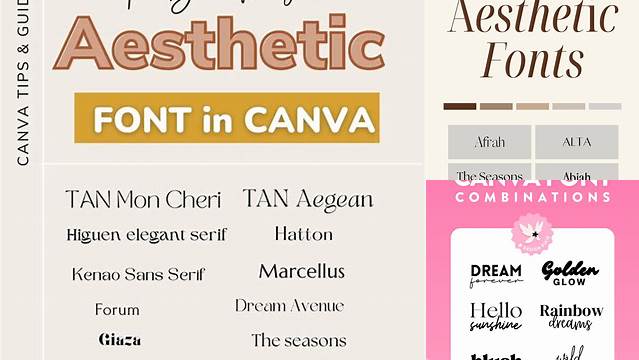
Aesthetic Canva Fonts: Perfect Combinations!
Choosing the right fonts can make or break your design, especially when aiming for that perfect aesthetic. Canva offers a plethora of fonts, but knowing which ones pair well together can be tricky. Let's dive into some killer aesthetic Canva font combinations that will elevate your designs and make them truly stand out!
1. Classic Serif & Modern Sans-Serif
Pairing a classic serif font with a modern sans-serif is a timeless combination that works wonders. The serif font brings a touch of elegance and tradition, while the sans-serif adds a contemporary and clean feel. For example, you can use 'Lora' for headings and 'Montserrat' for body text. This combination is versatile and suitable for various projects, from blog posts to branding materials. Think of the serif as the sophisticated older sibling and the sans-serif as the cool, modern younger sibling – they complement each other perfectly, creating a balanced and visually appealing design. Using this approach ensures readability while maintaining a stylish aesthetic. You can also play around with different weights and styles within these font families to add further depth and visual interest to your designs. Remember, the goal is to create a harmonious balance between the two fonts, so experiment until you find a combination that truly resonates with your vision. With the right serif and sans-serif pairing, you can achieve a professional and polished look that will impress your audience and elevate your brand.
2. Elegant Script & Simple Sans-Serif
For a touch of sophistication and personality, combine an elegant script font with a simple sans-serif. Script fonts add a handwritten, artistic flair, while sans-serif fonts provide clarity and readability. 'Great Vibes' paired with 'Open Sans' is a fantastic example. This pairing is ideal for wedding invitations, greeting cards, and designs that need a personal touch. Imagine the script font as the beautiful handwriting on a heartfelt letter, and the sans-serif as the clear, concise message that accompanies it. Together, they create a feeling of warmth and authenticity. When using script fonts, it's essential to use them sparingly, mainly for headings or short phrases, to avoid overwhelming the viewer. The sans-serif font should be used for the body text, ensuring that the message is easily readable. Experiment with different script and sans-serif fonts to find the perfect balance that suits your design style. Whether you're designing a romantic wedding invitation or a charming birthday card, this combination will add a touch of elegance and personality that will captivate your audience.
3. Bold Display & Clean Sans-Serif
A bold display font paired with a clean sans-serif is perfect for making a statement. The display font grabs attention, while the sans-serif ensures readability. Try 'Bebas Neue' for headings and 'Roboto' for body text. This combination is great for posters, website headers, and marketing materials. The bold display font acts as the attention-grabbing headline, drawing the viewer's eye and conveying the main message. The clean sans-serif font provides the necessary clarity and readability for the supporting text. This pairing is particularly effective when you want to create a strong visual impact and communicate a clear message. When choosing a bold display font, consider its overall style and personality. Does it align with your brand's image and target audience? The sans-serif font should be simple and unobtrusive, allowing the display font to shine. Experiment with different weights and sizes to create a visually appealing hierarchy. With the right bold display and clean sans-serif combination, you can create designs that are both eye-catching and easy to read, making a lasting impression on your audience.
4. Monospace & Geometric Sans-Serif
For a modern and tech-inspired look, try a monospace font with a geometric sans-serif. Monospace fonts have a fixed-width, giving them a unique, typewriter-like appearance. Pairing 'Courier Prime' with 'Raleway' creates a sleek and contemporary design. This combination is ideal for coding-related content, minimalist designs, and anything that needs a touch of techy sophistication. The monospace font adds a sense of precision and technical expertise, while the geometric sans-serif provides a clean and modern aesthetic. Think of it as the perfect blend of old-school coding and futuristic design. When using this combination, be mindful of readability. Monospace fonts can sometimes be challenging to read in large blocks of text, so use them sparingly, mainly for headings, code snippets, or short phrases. The geometric sans-serif font should be used for the body text, ensuring that the message is easily understandable. Experiment with different weights and styles to create a visually appealing contrast. With the right monospace and geometric sans-serif pairing, you can achieve a sophisticated and tech-savvy look that will impress your audience.
5. Vintage Serif & Classic Sans-Serif
To evoke a sense of nostalgia and timelessness, combine a vintage serif font with a classic sans-serif. The vintage serif font adds character and charm, while the classic sans-serif provides a sense of stability and reliability. 'Playfair Display' paired with 'Lato' is a great choice. This combination is perfect for branding, packaging, and designs that need a touch of old-world elegance. The vintage serif font acts as a reminder of the past, while the classic sans-serif grounds the design in the present. Think of it as a harmonious blend of tradition and modernity. When using this combination, consider the overall tone and message you want to convey. The vintage serif font should reflect the era you're trying to evoke, while the classic sans-serif should provide clarity and readability. Experiment with different weights and styles to create a visually appealing hierarchy. With the right vintage serif and classic sans-serif pairing, you can achieve a timeless and sophisticated look that will resonate with your audience.